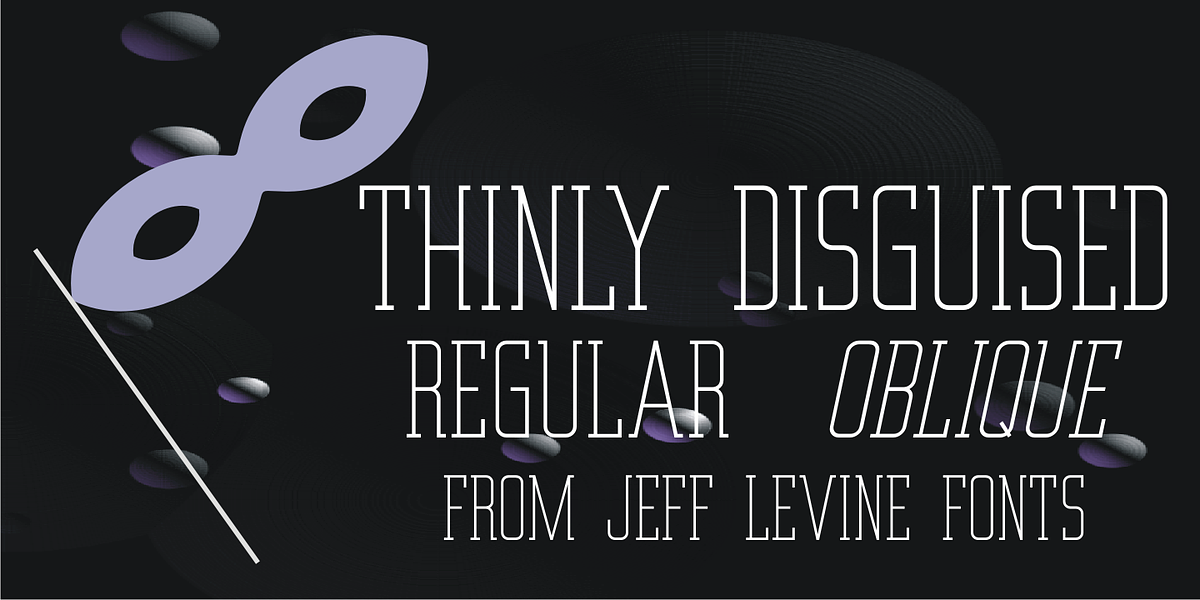
Thinly Disguised JNL
The hand lettered thin, variable width slab serif text appearing on the cover of a souvenir photo book for the 1933 Chicago World's Fair Exposition is the basis for Thinly Disguised JNL.